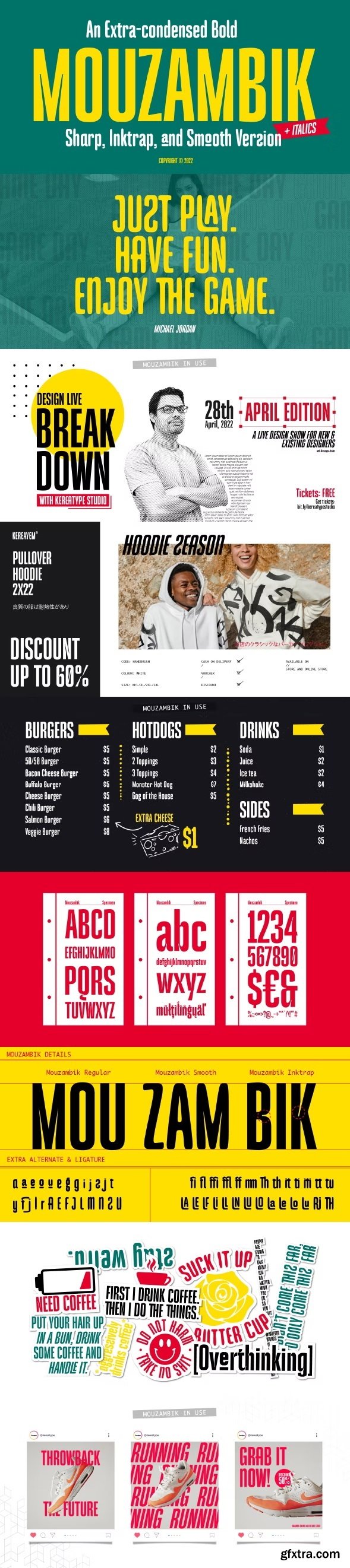
Mouzambik - Condensed Font
MOUZAMBIK is a simple, condensed sans serif font with a bold and complex personality. Comes in 3 styles fonts: regular, Inktrap, and Smooth with italics. It was purposely crafted to be used in large point sizes, although it doesn’t lose its magic in small point sizes.